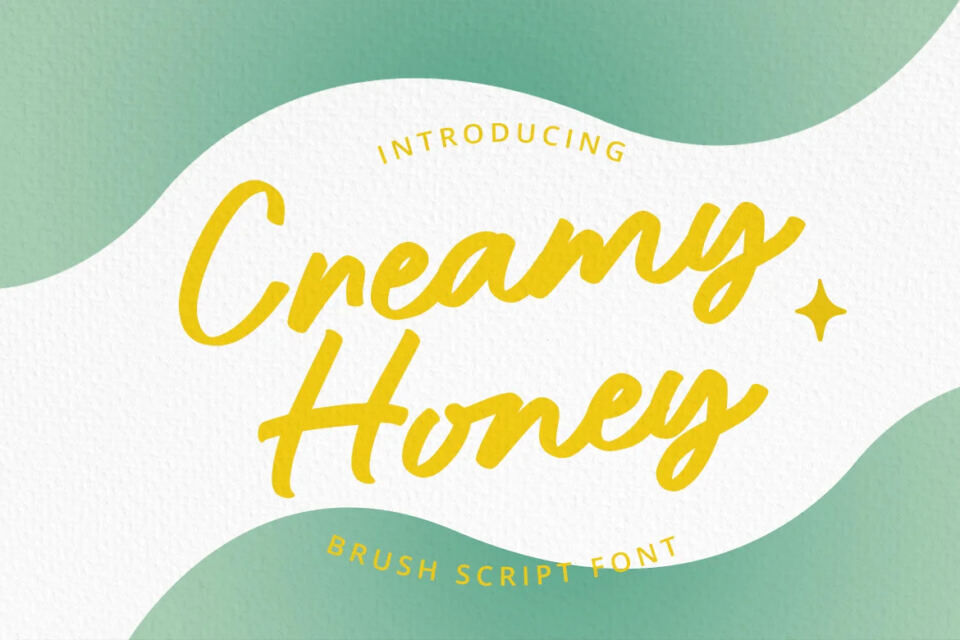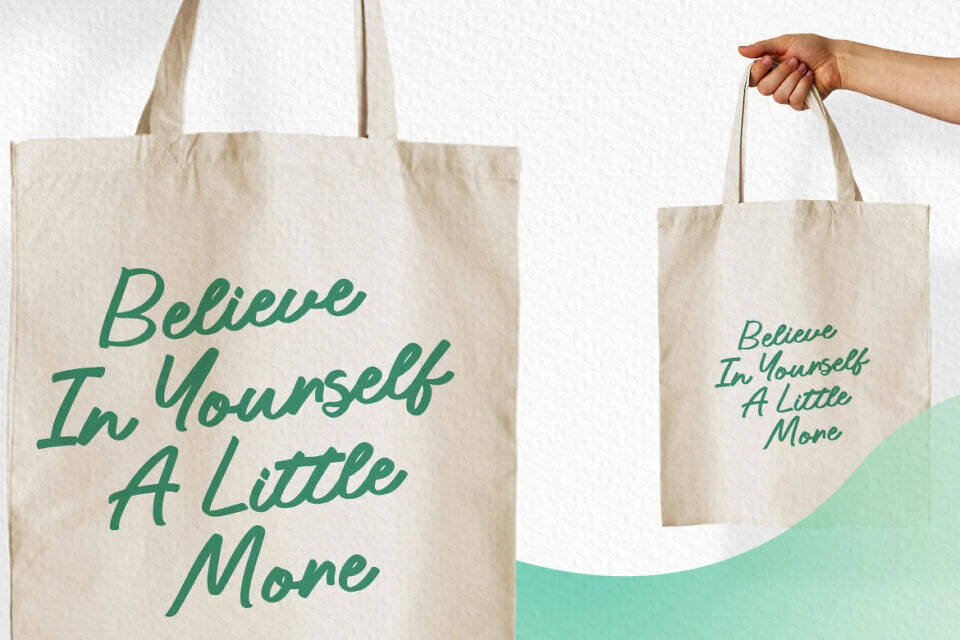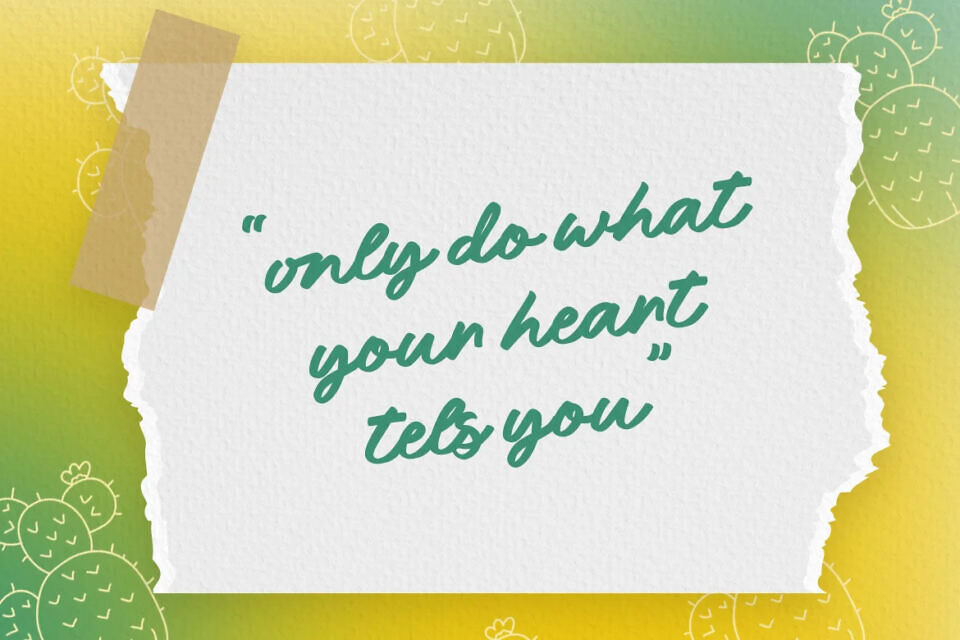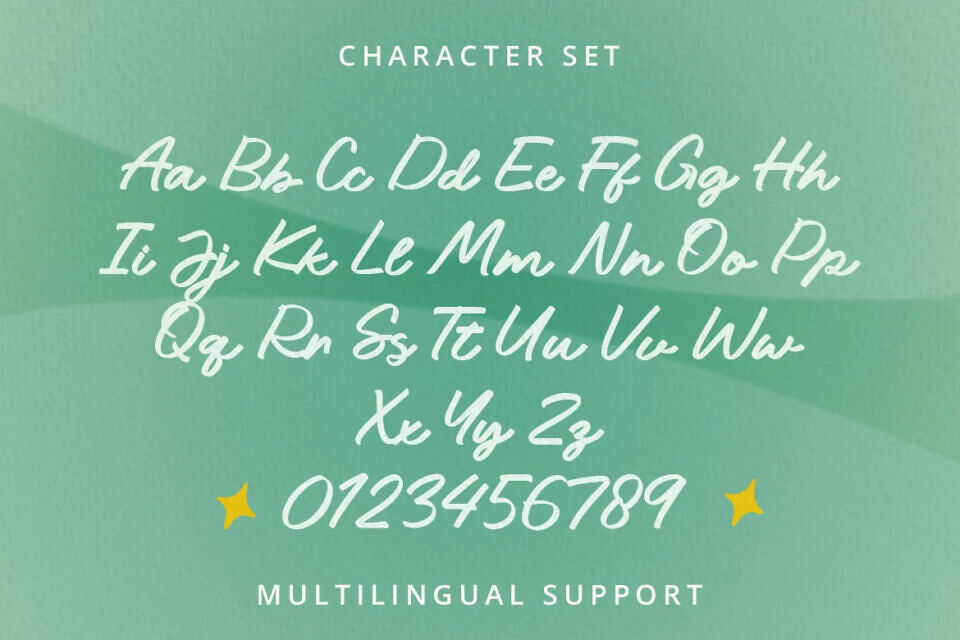
Unleash your creativity with this dynamic and expressive typeface. Perfectly blending the energy of brush strokes with elegant script, this font is designed to bring your projects to life. Ideal for everything from branding to social media posts, creamy honey will add a bold and artistic flair to any design.